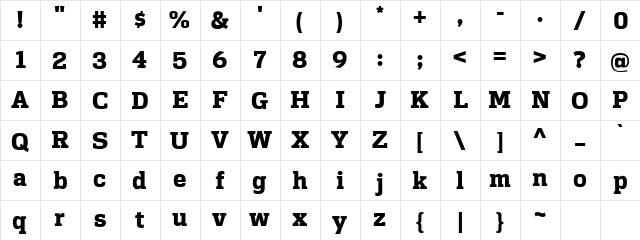
EndzoneSlab-Bold Regular Font Preview
EndzoneSlab-Bold Regular
EndzoneSlab-Bold Regular Font Details
Design Context for EndzoneSlab-Bold Typeface
EndzoneSlab-Bold features prominent, blocky serifs that give it a confident, grounded presence — equally at home in editorial settings and bold branding work. Its bold stroke weight gives it real presence on the page.
Suited to magazines, political campaign materials, bold packaging, and any setting where authority matters.
Pro Tip: Use EndzoneSlab-Bold for headlines and subheadings where its slab serifs can make an impression. It also holds up well in mid-size body copy thanks to its sturdy construction.